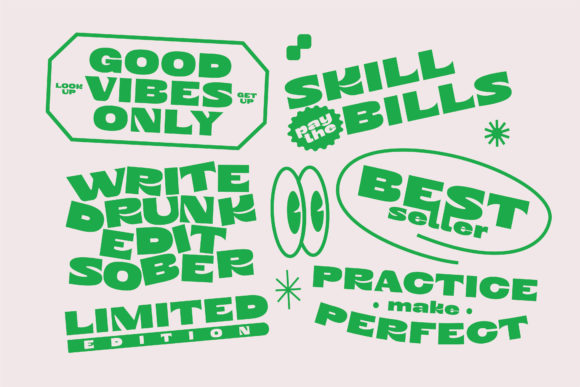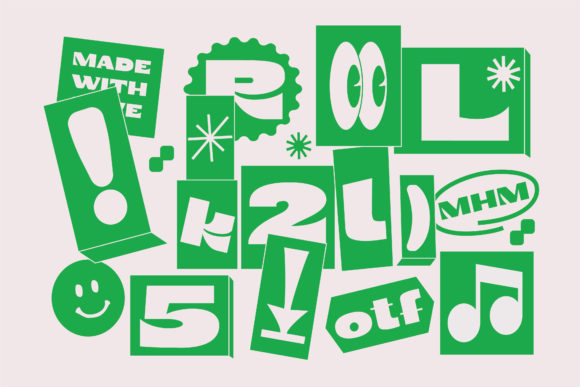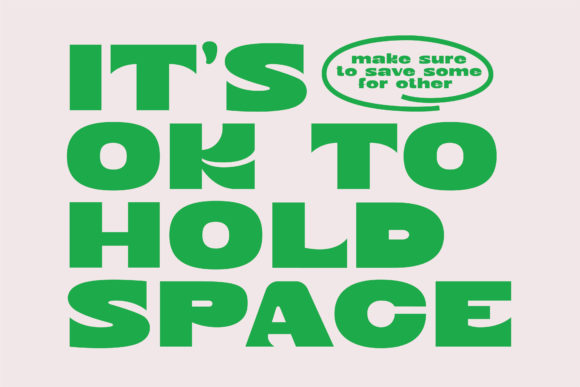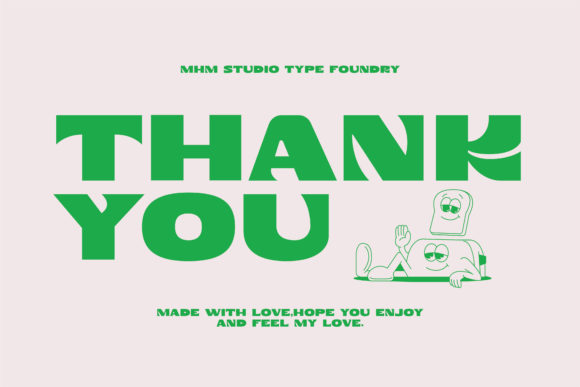
The Perfect Slice of Creativity: Introducing Bread Toast Font
Have you ever been in the midst of a design project, staring blankly at your screen, and suddenly, it hits you – the perfect idea? The one that makes your entire concept come alive? That’s exactly what happened when designers discovered the Bread Toast Font, a bold and thick lettered display font that’s sure to make your creations stand out.
With its dynamic and trendy vibe, the Bread Toast Font is the perfect addition to any design project. Whether you’re working on a logo, poster, or social media graphic, this font is sure to bring a touch of sophistication and style to your work. For designers, the value of the Bread Toast Font lies in its versatility and ability to instantly elevate your designs.
Bread Toast Font Key Features
- Font Family: Bread Toast Font is a sans-serif font family designed by Alex Shpak and published by Fontfabric.
- Unique Characteristics: Bread Toast Font features a clean, modern design with a distinctive rounded edge, giving it a friendly and approachable feel.
Bread Toast Font Review
As a designer, I was excited to try out the Bread Toast Font, but my expectations were a mix of delight and disappointment. Here’s a honest review of what works and what doesn’t.
- Unique Character**: Bread Toast Font offers a distinctive and quirky feel that can be perfect for projects that need a bit of whimsy.
- High-contrast Text**: The font’s bold and playful design makes it great for titles and headings that need to grab attention.
- Good for Titles**: Its unique design also makes it suitable for creating eye-catching titles and quotes.
- Limited Readability**: Bread Toast Font’s unusual design can make it difficult to read for extended periods of time, especially in body text.
- Not Ideal for Body Text**: The font’s unique characteristics can make it challenging to read, which limits its usability for large blocks of text.
- Not Web-Friendly**: The font’s design may not be optimized for web use, which can result in rendering issues or poor legibility.
Bread Toast Font is a fun and playful font that can add a touch of personality to your designs. However, its limitations make it less suitable for projects that require extensive text or web use. It’s perfect for titles, headings, and quotes where you want to make a statement, but it’s not the best choice for body text or large blocks of content.
Some tips for getting the most out of the Bread Toast Font include:
- Use it to add a playful touch to your designs
- Pair it with bold or italic fonts for contrast
- Experiment with different font sizes and colors to create visual interest
Some common use cases for the Bread Toast Font include:
- Playful social media graphics
- Choose a bold color scheme to match the bakery’s brand.
- Use the font for the menu item names, prices, and any other text that needs to stand out.
- Pair the font with watercolor illustrations of bread, pastries, or other bakery items.
- Use a distressed texture to give the design a vintage feel.
- Choose a warm color scheme with earthy tones to match the font’s rustic feel.
- Use the font for headings, subheadings, and any other text that needs to convey a sense of comfort.
- Pair the font with high-quality images of homemade dishes or rustic kitchen settings.
- Use a wood texture or a natural background to enhance the cozy feel.